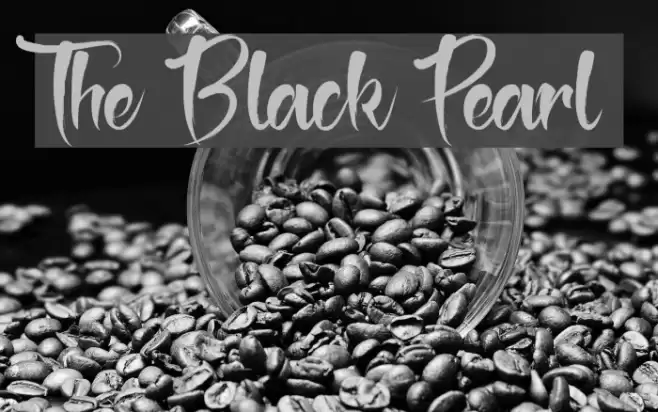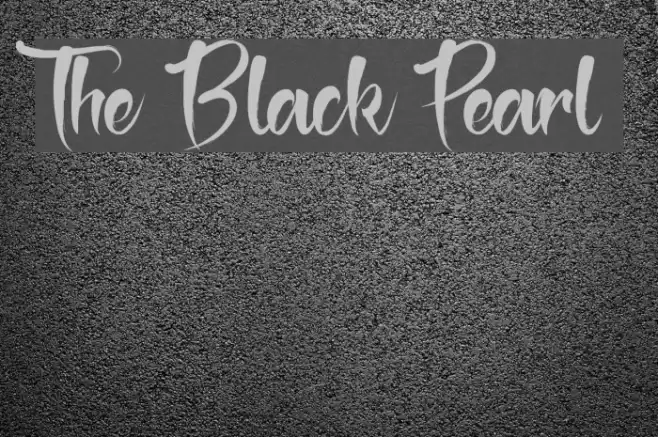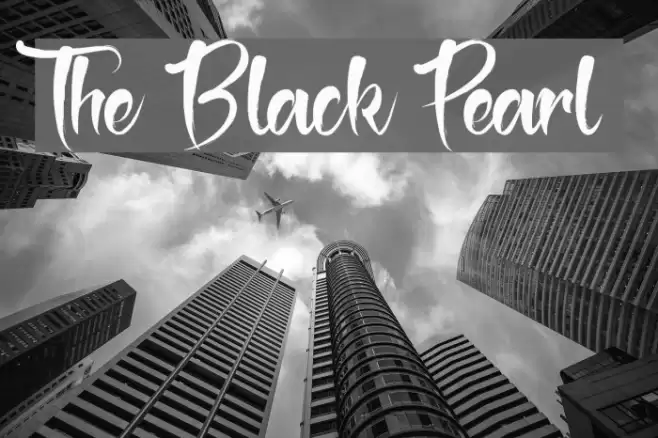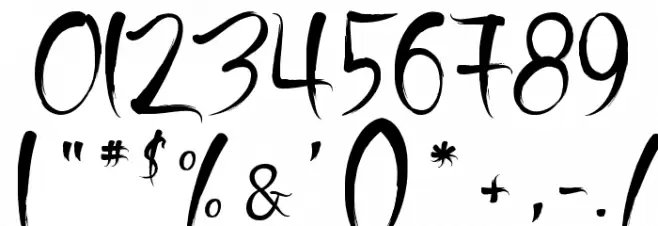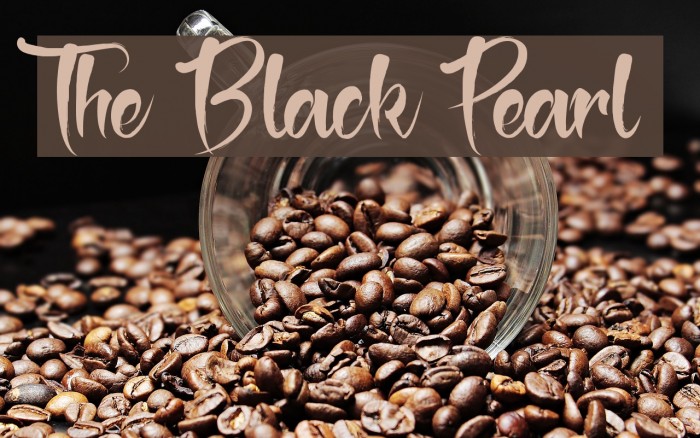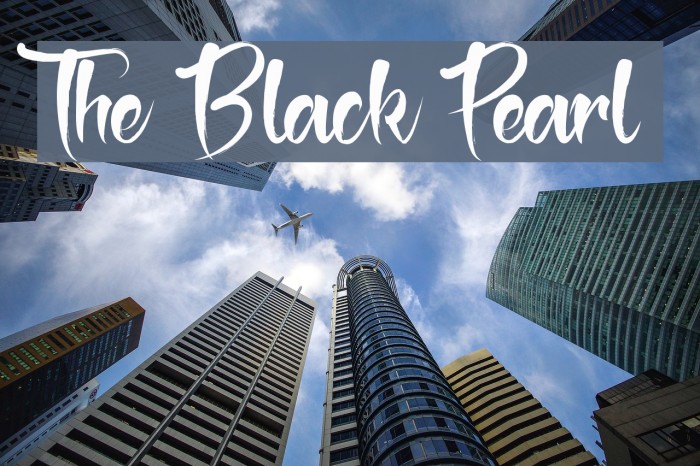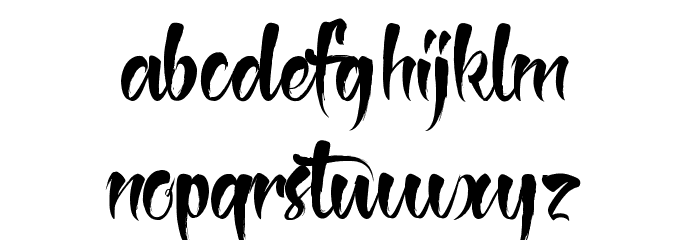
The Black Pearl Font
The Black Pearl Description
This font exudes a dynamic and artistic flair, characterized by its bold, sweeping strokes and fluid, calligraphic style. The uppercase letters are particularly striking, with dramatic flourishes and varying line thickness that create a sense of movement and energy. The lowercase letters maintain this fluidity, offering a harmonious blend of elegance and expressiveness. Numbers and special characters are equally stylized, ensuring a cohesive look across all elements. The overall impression is one of creativity and boldness, making it ideal for projects that require a touch of artistic sophistication.
- Proposed Projects: Ideal for branding, invitations, posters, and any project requiring a creative, artistic touch.
- Use Case: Logos, Headlines, Invitations